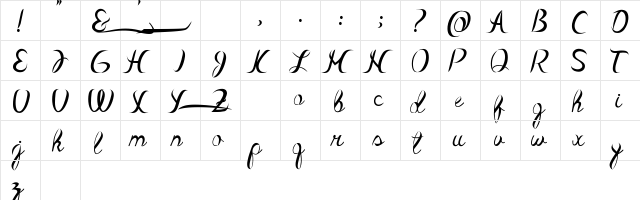
Luna Luna Regular
| Foundry | Jaime Rangel Castro |
| Designer | Jaime Rangel Castro |
Design Context for Luna Luna Typeface
Luna Luna is a composed and adaptable typeface that performs quietly and consistently across a wide range of design contexts.